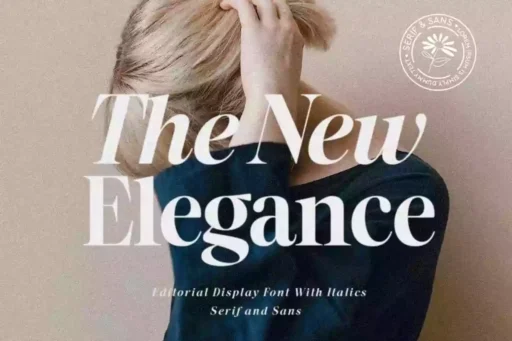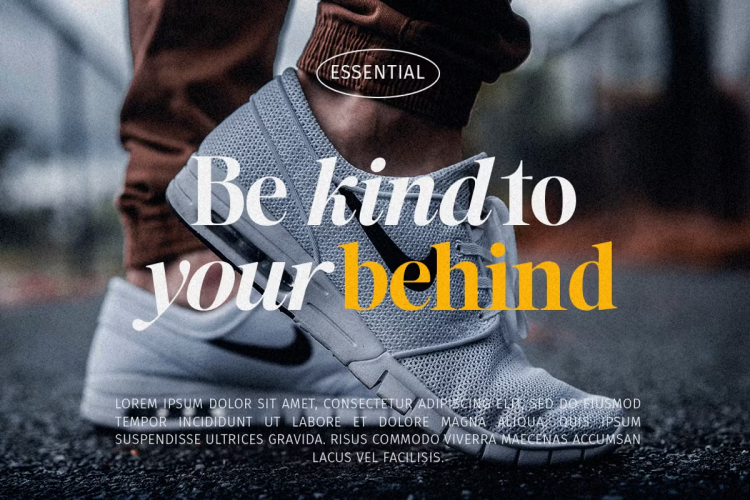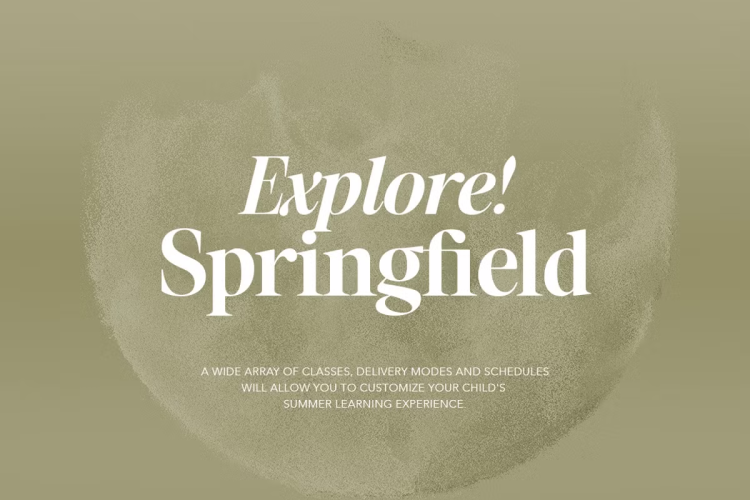
The New Elegance Font
The New Elegance is a classic editorial font that represents contemporary sophistication in its smooth, rounded shapes, even proportions, and tranquil elegance. This typeface is created to have a modern look without looking overly flashy or obsolete, has smooth edges with the added grace making it suitable for use in any layout.
This typeface comes in two complementary styles: Serif and Sans Serif, both conceived to coexist in perfect synergy for a number of design applications. All of the styles come with italic variants, which helps make them even more useful and provide designers with an opportunity to combine different textures and stress within the design.
The New Elegance is especially great for the projects that require a vintage look with some style. Whether you are designing headlines for a newspaper, layouts for a magazine, logos and branding, packaging or elegant editorial layouts, this typeface provides a timeless yet modern look.
The New Elegance Font is a Serif Fonts font that brings a professional and versatile look to your projects. The New Elegance is a classic editorial font that represents contemporary sophistication in its smooth, rounded shapes, even proportions, and tranquil elegance.